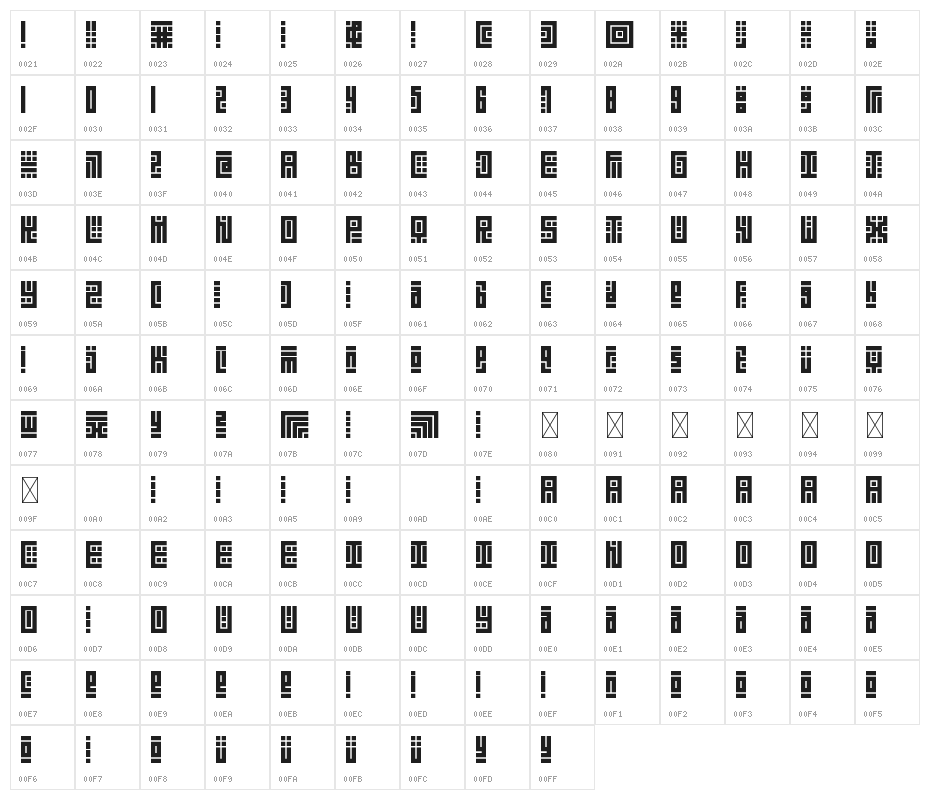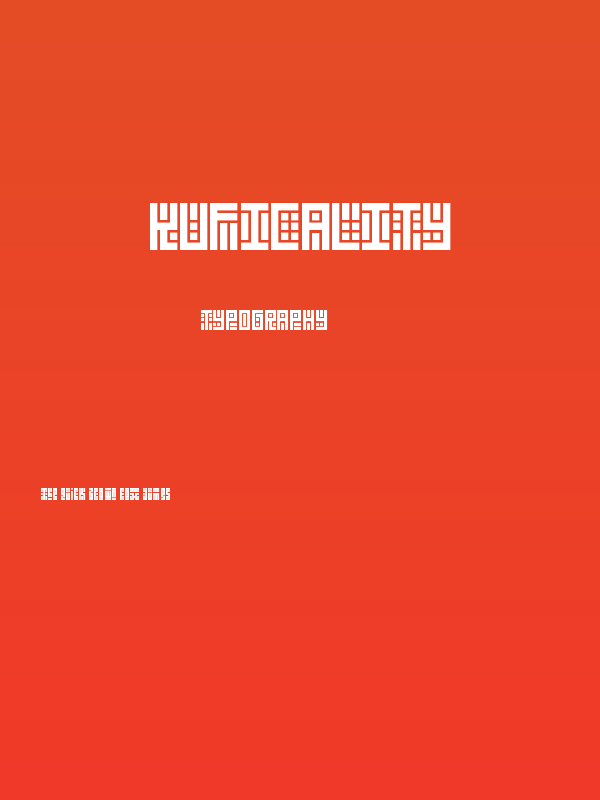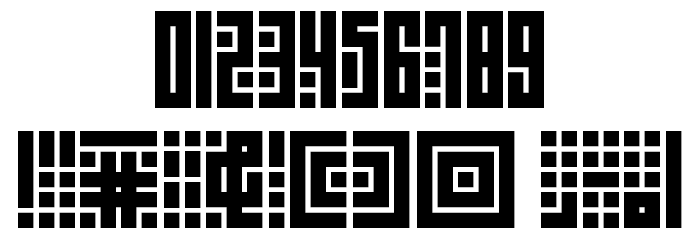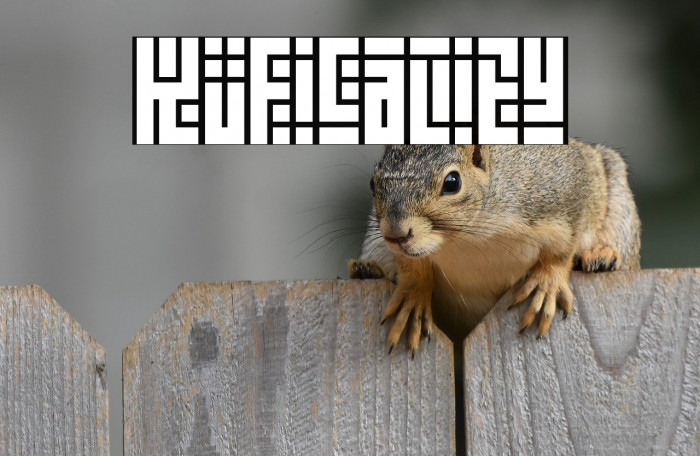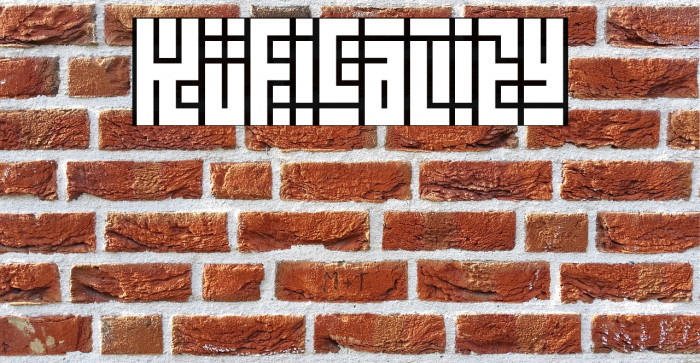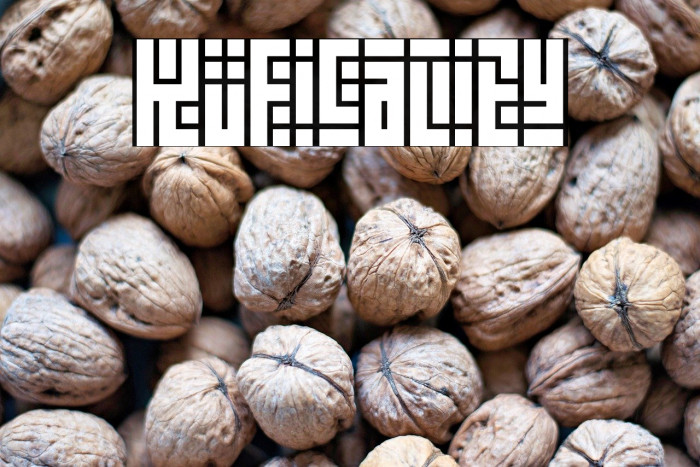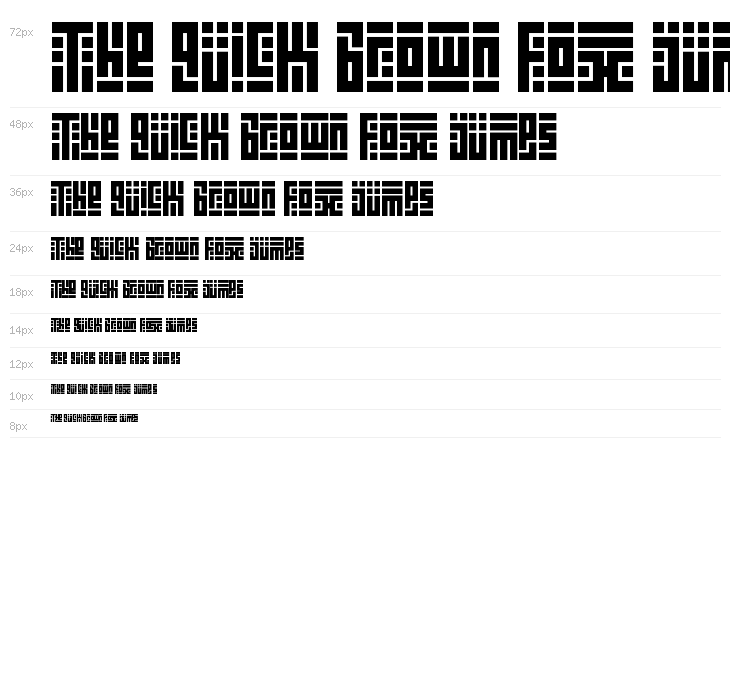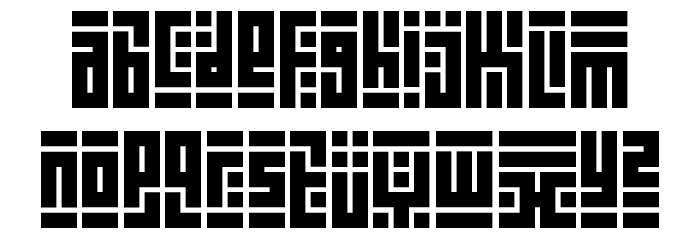
Kuficality Font
Kuficality Description
This font exhibits a bold, geometric style with a strong influence from Kufic script, characterized by its blocky, angular shapes and intricate patterns within each character. The uppercase and lowercase letters maintain a consistent height, creating a uniform appearance. The numerals and special characters follow the same design principles, ensuring a cohesive look across all elements. The font's unique aesthetic makes it stand out, with each character resembling a piece of art, combining traditional calligraphic elements with modern design sensibilities.
| Use Case | Logos, Posters, Branding |
| Proposed Projects | Ideal for branding, logos, posters, and any project requiring a strong, artistic statement. |